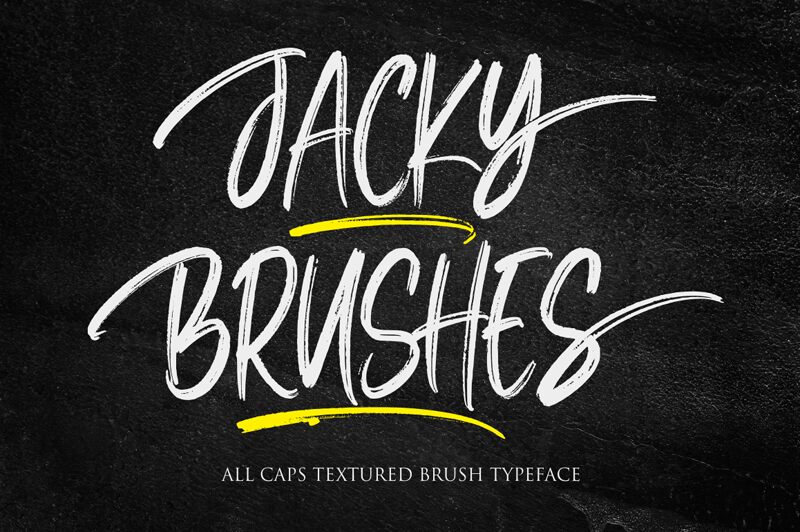
Jacky Brushes
Introducing Jacky Brushes, a brush style script font designed by Siti Nurjanah. Its narrow width makes it perfect for creating expressive logos, handwritten quotes and beautiful headlines.